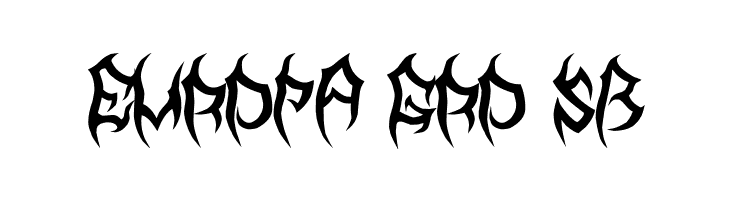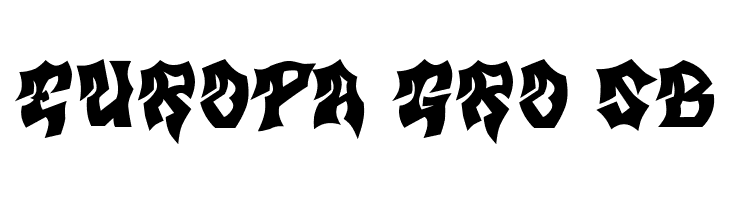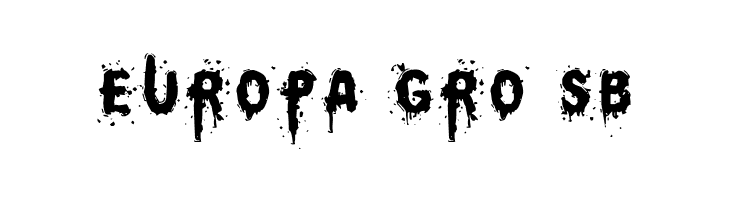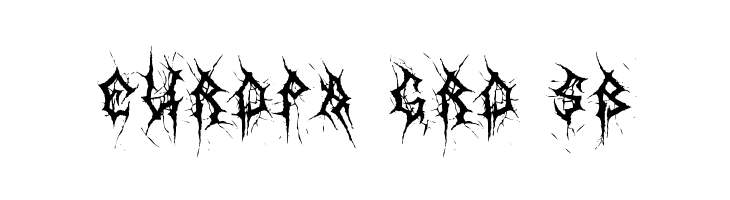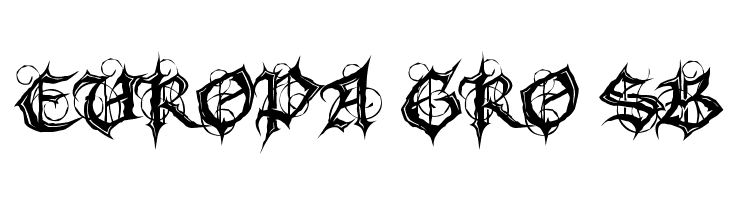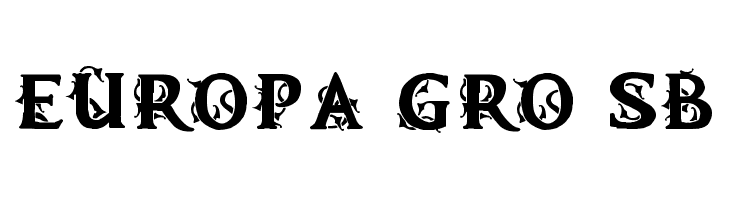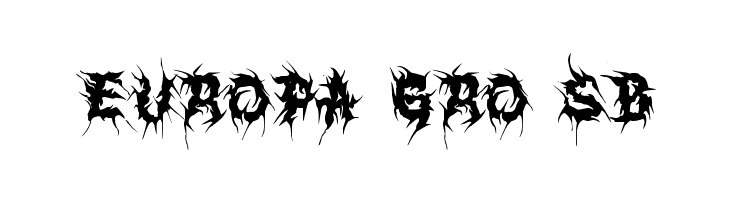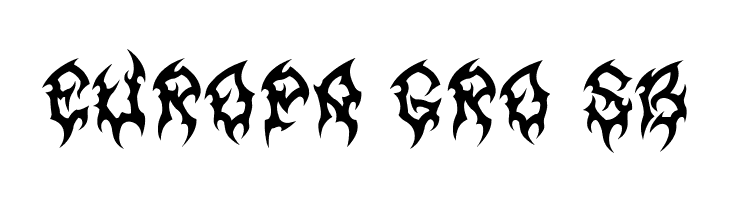
( Irina ModBlackmoon - modblackmoon.com/ )
A gothic-inspired font with thorn-like embellishments and bold, dramatic strokes.
( Irina ModBlackmoon - modblackmoon.com/ )
A bold, thorny font with a gothic, horror-inspired aesthetic.
( Irina ModBlackmoon - modblackmoon.com/ )
A bold, aggressive font with sharp, jagged edges and a tribal flame-like design.
( Fonts by Irina ModBlackmoon )
A gothic, thorny font with intricate, sharp embellishments and dramatic flourishes.
( Irina ModBlackmoon - modblackmoon.com/ )
A bold, gothic-inspired font with intricate, ornamental details.
( modblackmoon.narod.ru/ )
An edgy, thorn-like font with a chaotic and aggressive style.
( modblackmoon.narod.ru/ )
A grungy, dripping font with a bold, edgy aesthetic.